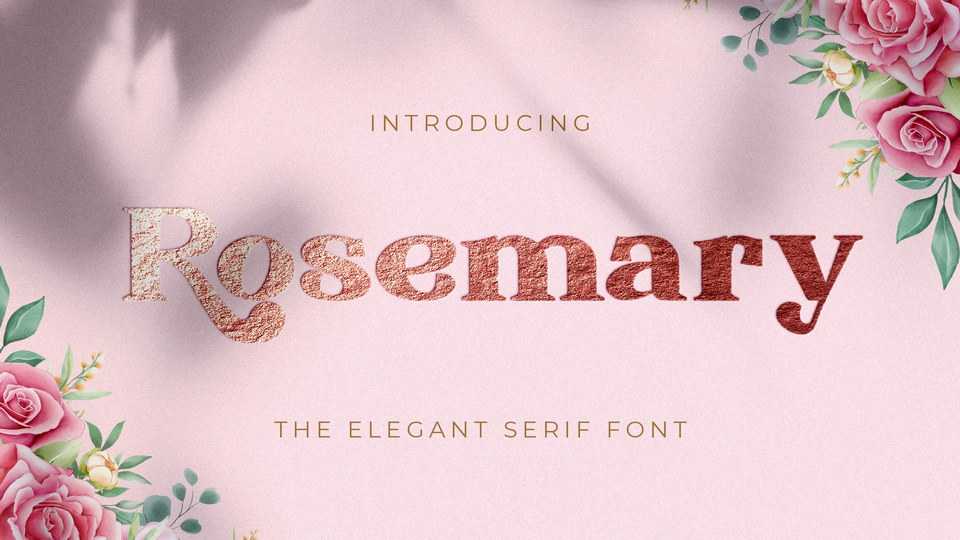
Download Rosemary font, an authentic and elegant serif typeface. Rosemary font can easily be matched to an incredibly large set of projects, so add it to your creative ideas and notice how it makes them stand out.